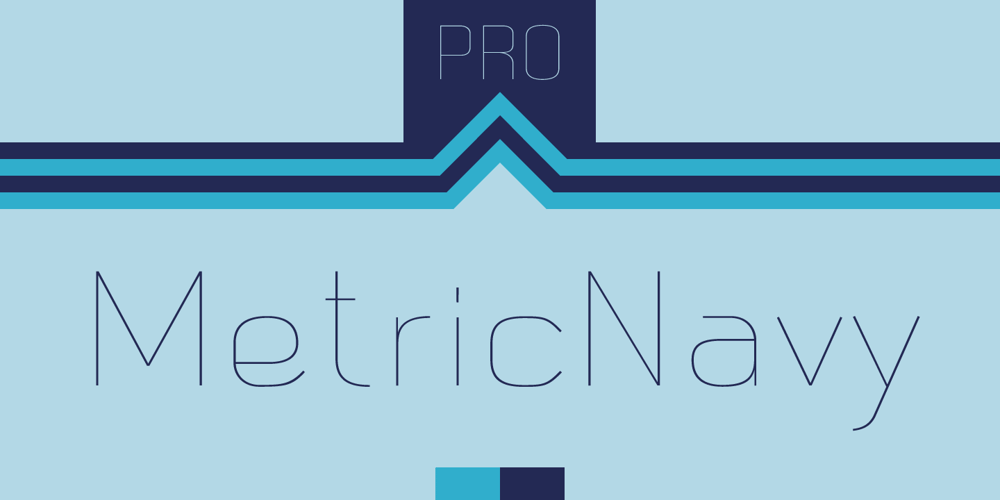
Metric Navy PRO Font Family was designed by Jefferson Cortinove and published by Sea Types. Metric Navy PRO contains 5 styles and family package options. Metric Navy PRO is a lightweight monoline developed for short texts and loose phrases in versions: thin, light, normal, regular, bold and black.